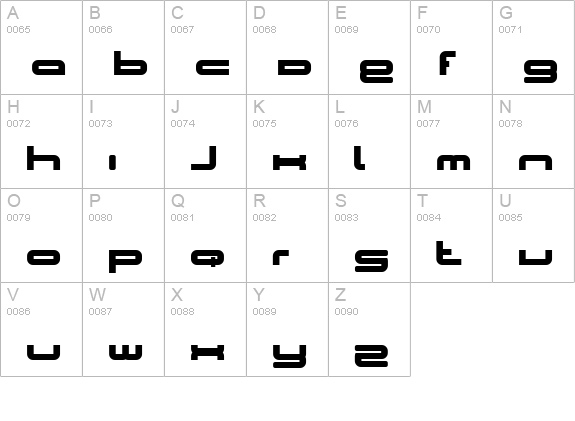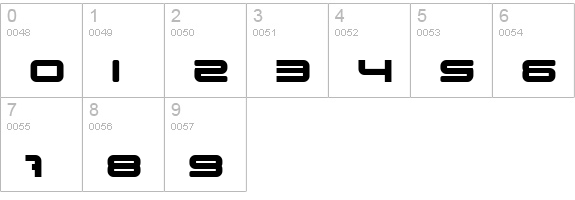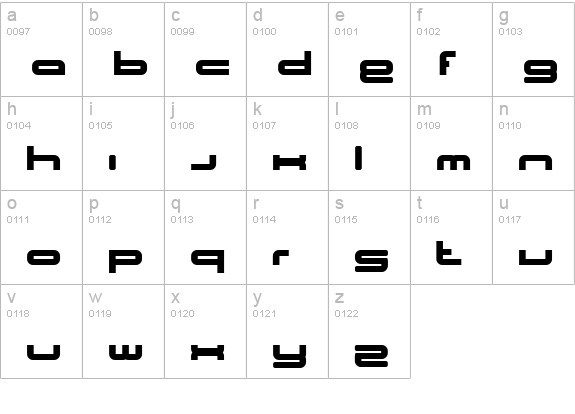
The BN Cosmic Girl font is a charming and playful typeface that exudes a sense of cosmic whimsy and futuristic style. Its sleek, rounded letters and space-inspired design make it perfect for adding a touch of fun to your projects. Whether you're creating a birthday invitation, a poster for a sci-fi event, or a children's book cover, this font is sure to stand out. Best of all, the BN Cosmic Girl font is completely free to download at FontsMarket.com. With just a few clicks, you can add this unique and eye-catching font to your collection without having to spend a dime. So why wait? Download the BN Cosmic Girl font today and let your creativity take flight into the cosmos!